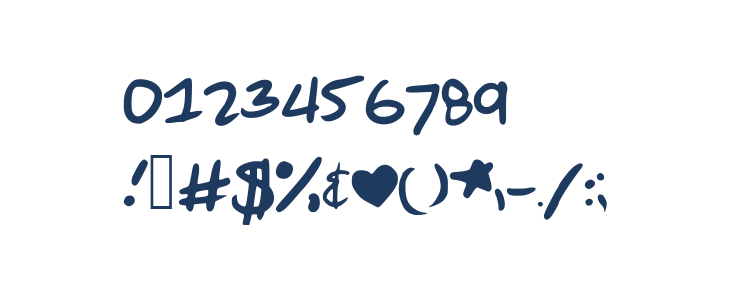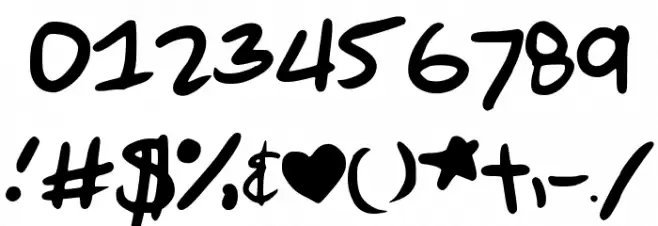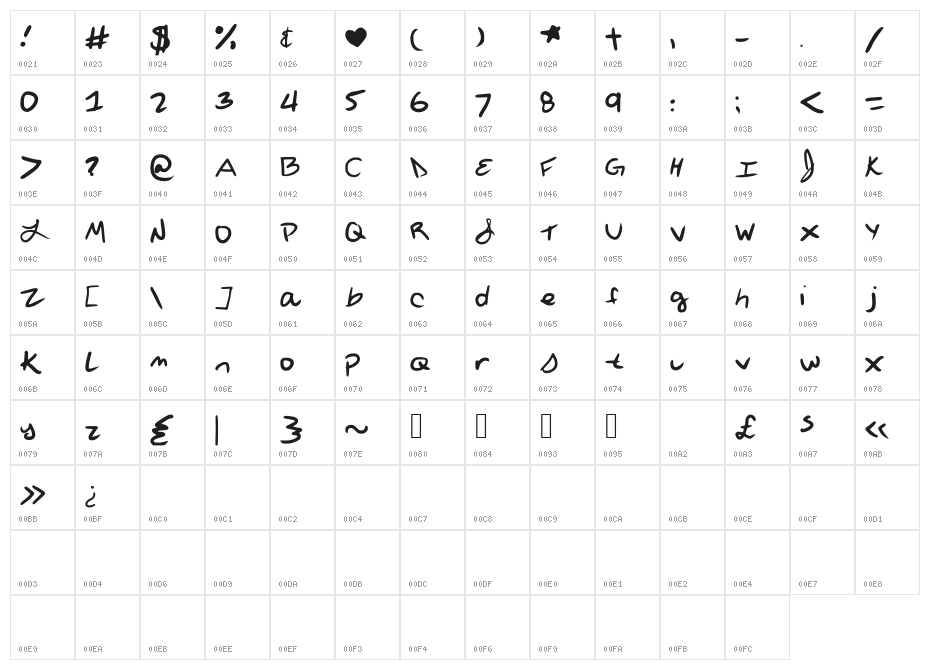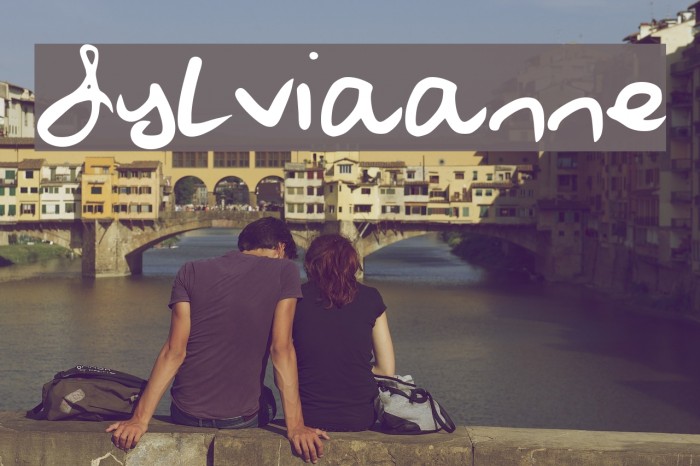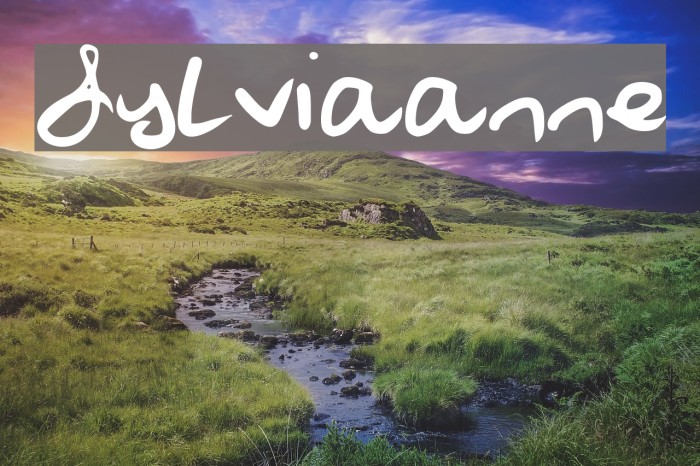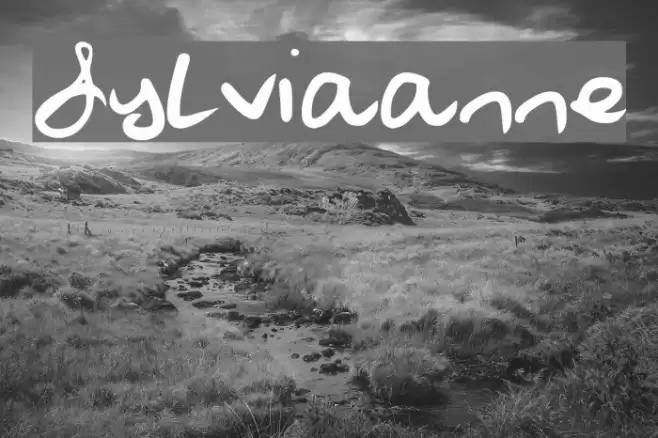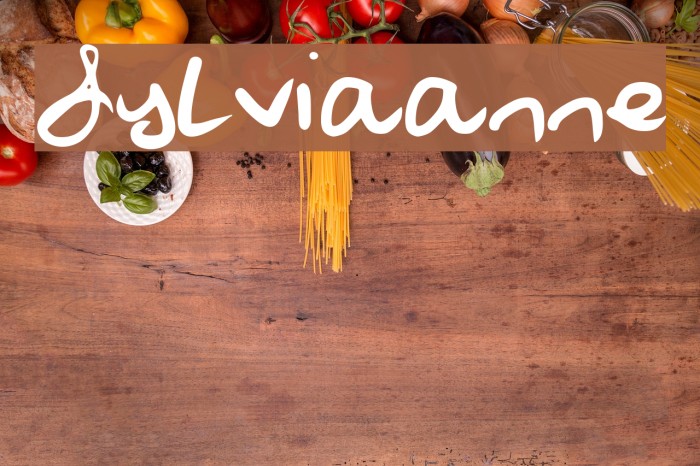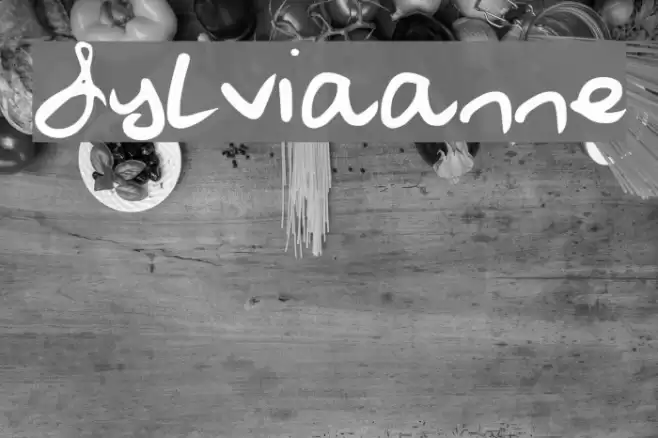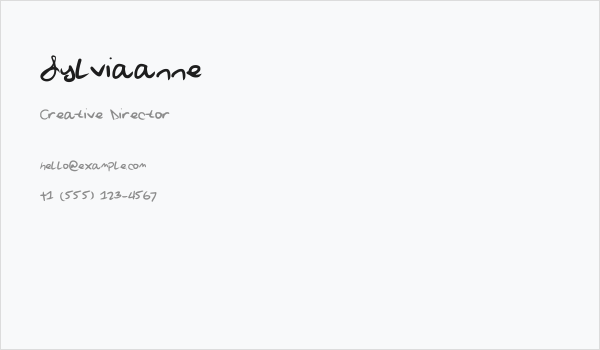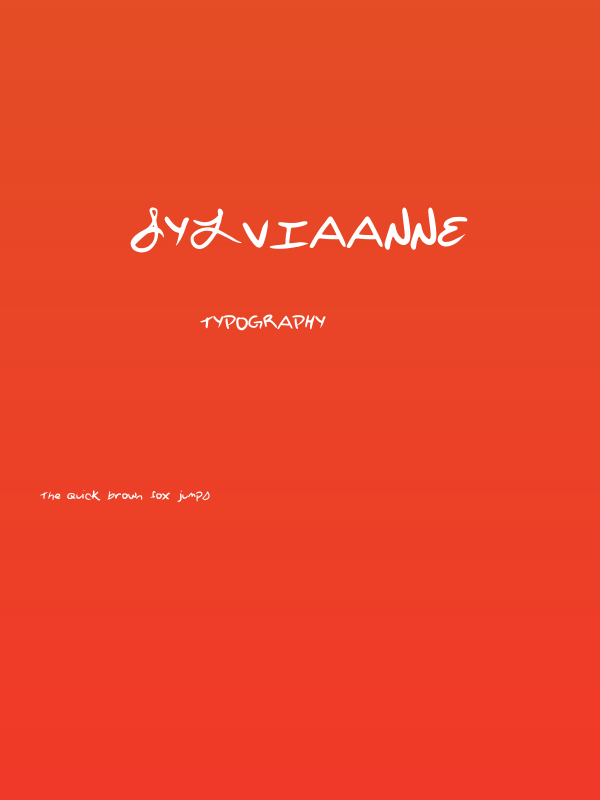
Sylviaanne Font
Sylviaanne Description
This font features a playful and energetic handwritten style, characterized by its bold and fluid strokes. The letters are slightly slanted, giving a sense of movement and informality. Each character is distinct, with unique curves and angles that add to its charm. The uppercase letters are bold and prominent, while the lowercase letters maintain a consistent flow. Numbers and special characters follow the same lively style, making the font versatile for various creative applications. The overall appearance is casual yet expressive, perfect for projects that require a personal touch.
SYLVIAANNE UPPERCASE
SYLVIAANNE LOWERCASE
SYLVIAANNE OTHER CHARS
| Overall Style | Playful, Casual |
| Proposed Projects | Ideal for greeting cards, children's books, playful branding, and social media graphics. |